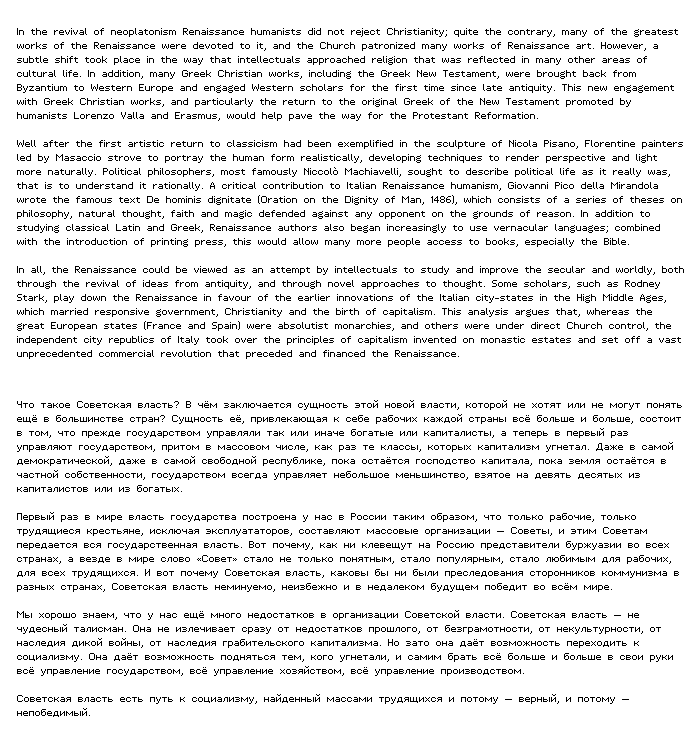
Character set, normal size and magnified. Caps height: 7px, x-height: 5px, ascenders and descenders 2-2px respectively, diacritical marks: 3px, Total vertical dimension: 12px. Letter width: 1-8px. Spacing: 1px. No kerning.
Sample text: English and Russian.